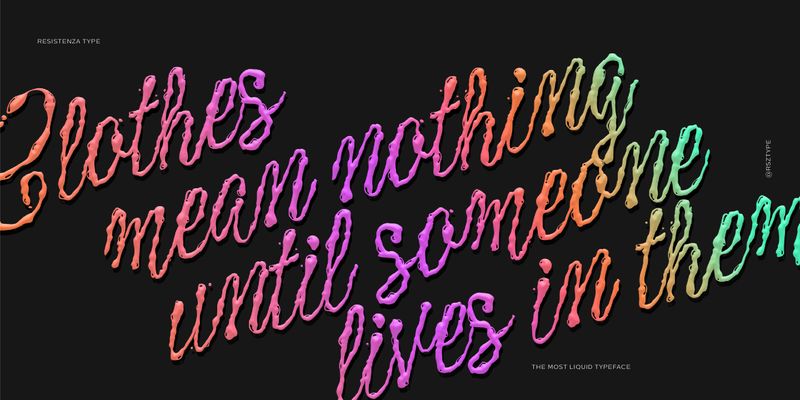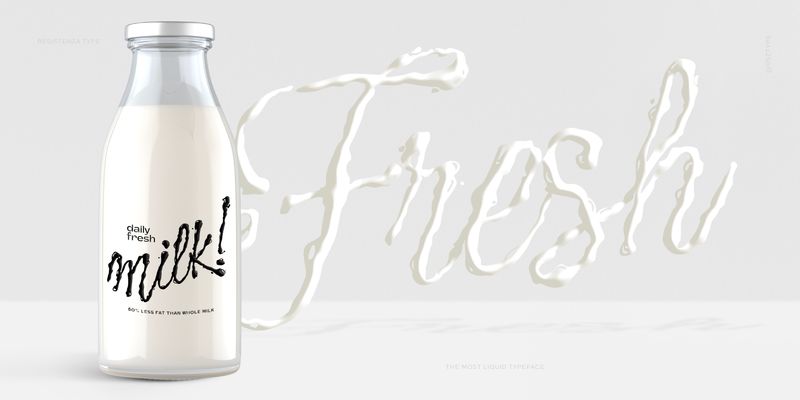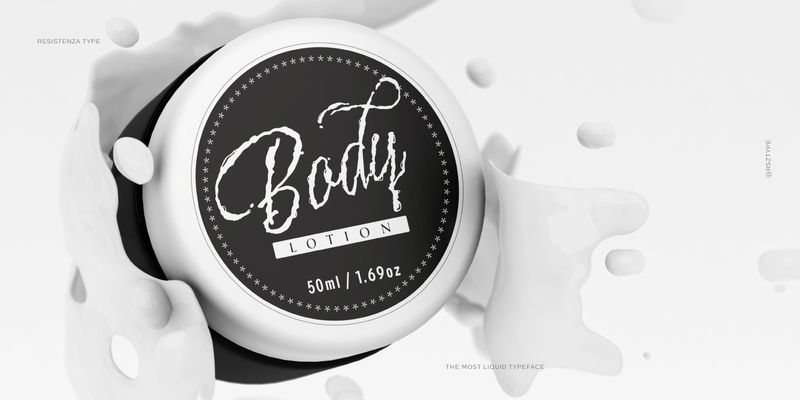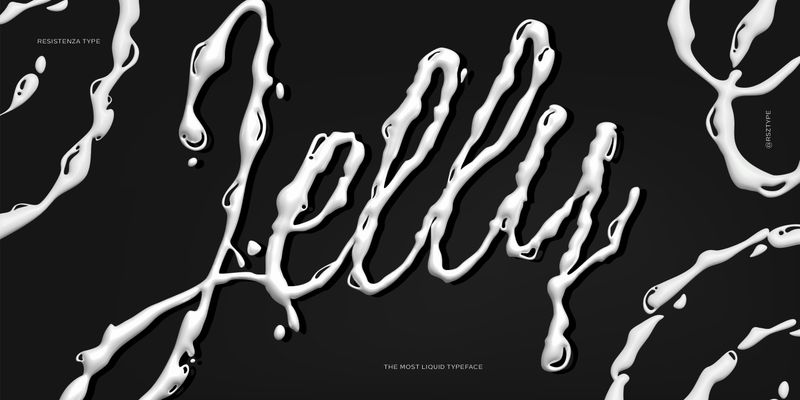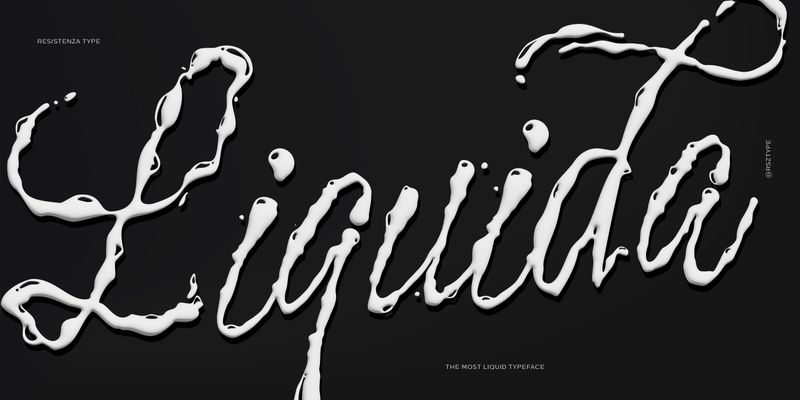
Boasting a slanted inclination crafted with brush and walnut ink. Its authentic droplet-inspired characters yield a unique, trickling effect. With a rich array of alternates, ligatures, and swashes, Liquida offers versatility through OpenType.
Resistenza
Resistenza is a type foundry consisting of Giuseppe Salerno, a trained calligrapher who gained his graphic design skills in Torino, Italy, and Paco González, a self-taught Spanish-born designer from Valencia. Working mostly by hand, a bold, humanistic quality comes through in their graphic design, emphasizing a connection with the places and people that use a particular product or service. Oftentimes, Resistenza create collections of their typefaces to work in a set or family, building on a brand that can work throughout a piece. Creating a library of brush scripts and calligraphic typefaces in addition to unique illustrations, sketches, icons and more, the two complement each other when coming to together for a particular client. With a deep passion for bringing type to life, beginning traditionally with pen and paper, and eventually implementing digitisation, the duo express the distinct features of their typefaces through the various influential cities they work and live in Berlin, Madrid, Torino and Valencia.